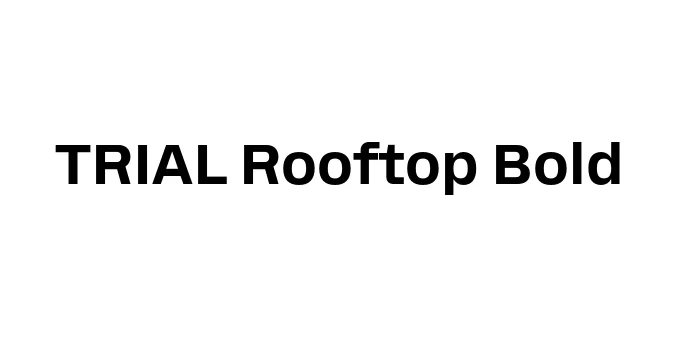
TRIAL Rooftop Bold
Designed by Martin Vácha
Rooftop is a contemporary sans-serif typeface developed by the Prague-based Displaay Type Foundry. The design takes its primary inspiration from the industrial aesthetics and structural geometry of urban architecture, specifically the functional forms of rooftop signage and metropolitan infrastructure. It is characterized by its sharp, deliberate junctions and a robust skeletal structure that bridges the gap between utilitarian signage and high-end editorial design.
The Bold weight specifically emphasizes the typeface's high-impact personality, offering a heavy-set appearance that maintains excellent legibility through precise ink traps and geometric clarity. Since its introduction, Rooftop has become a favorite for designers seeking a modernist aesthetic that feels both grounded and innovative. Its versatility allows it to function as a powerful display face while retaining a sophisticated, professional tone across various media formats.
TRIAL Rooftop Bold Best Uses
Strong, commanding headlines and title sequences in print magazines.
Visual identity systems for technology or architecture firms.
High-visibility signage and environmental graphics in urban spaces.
Impactful hero sections and navigation elements on modern websites.
Minimalist product labeling that requires a bold, structural presence.